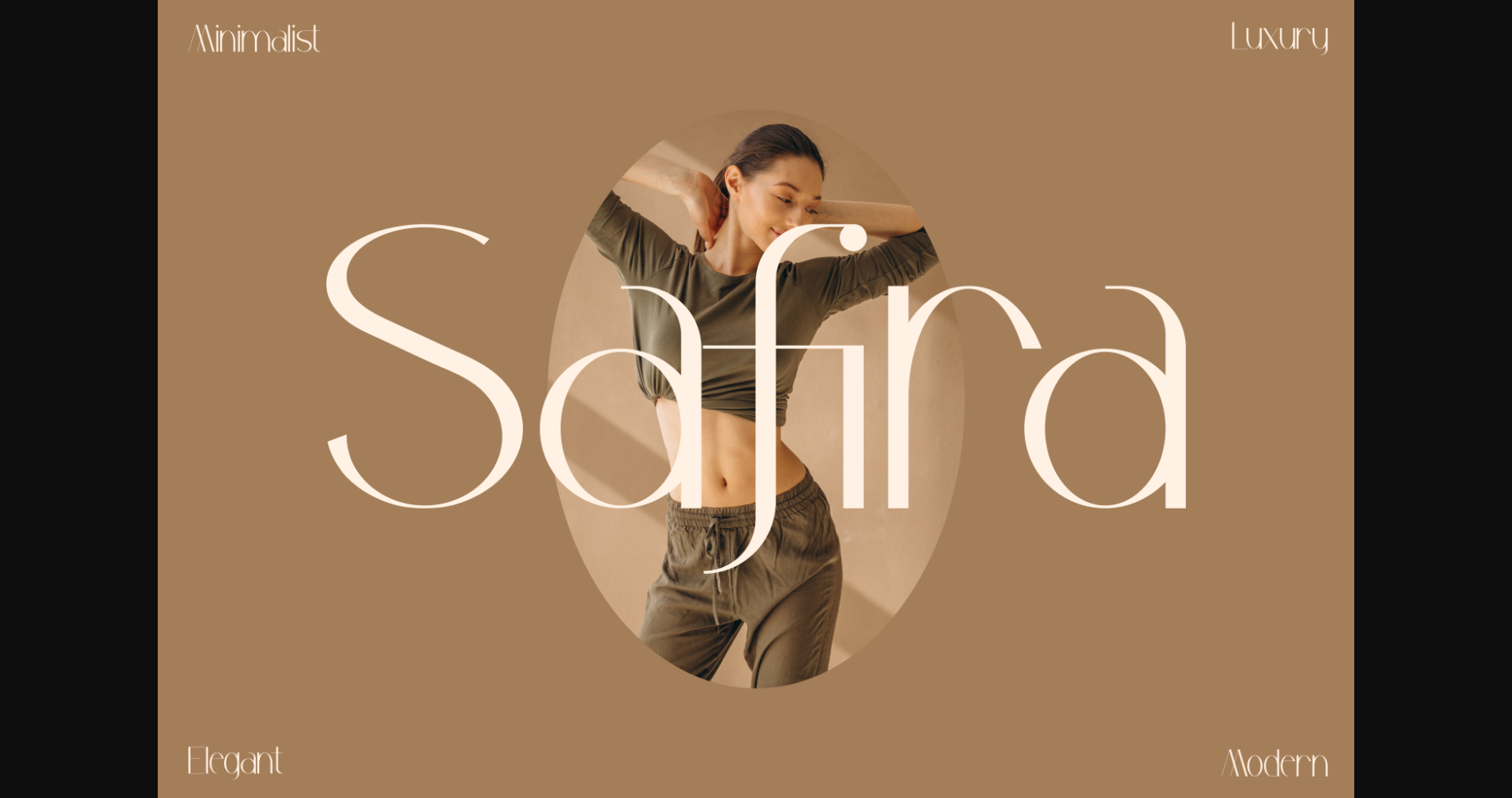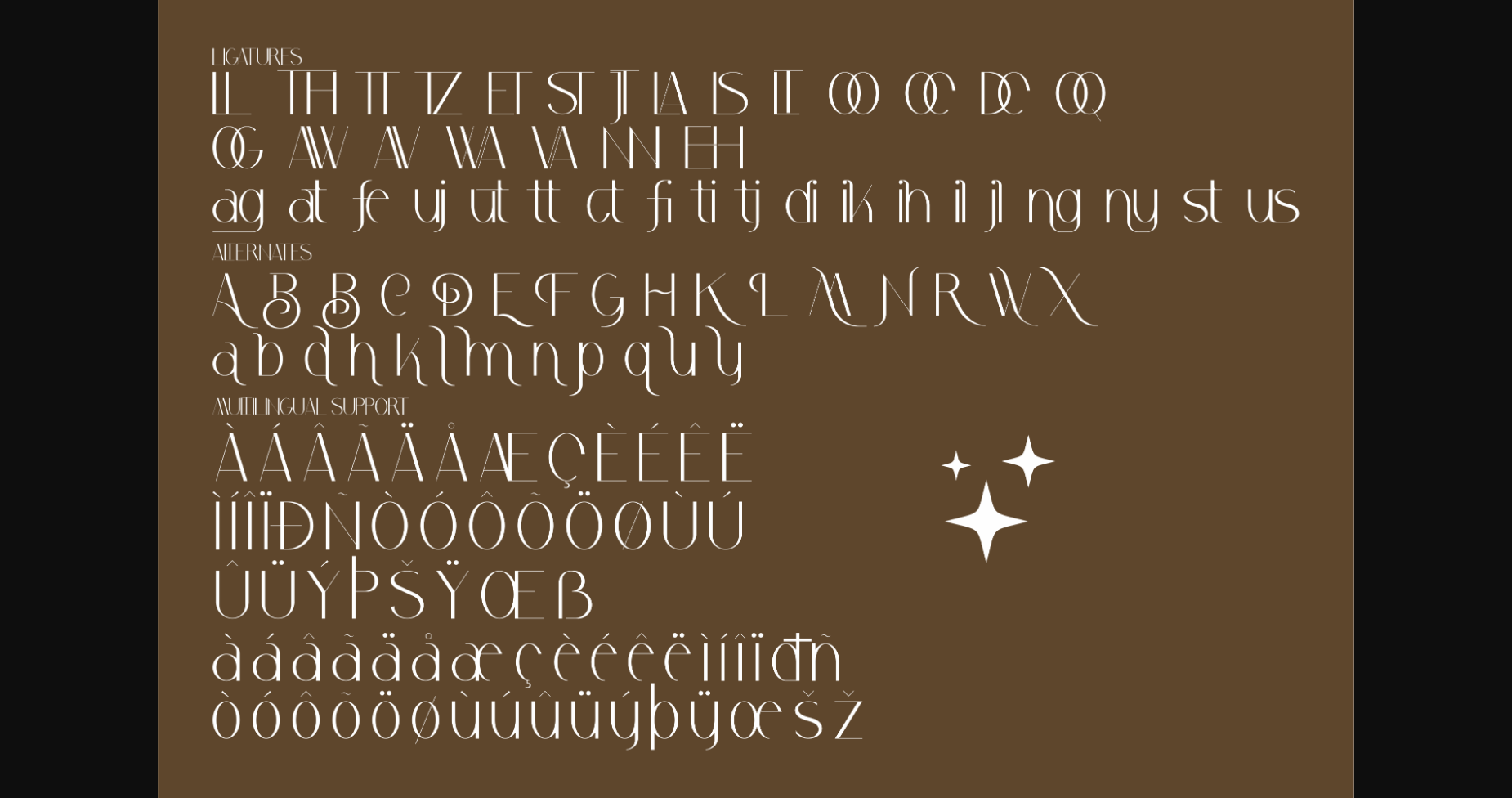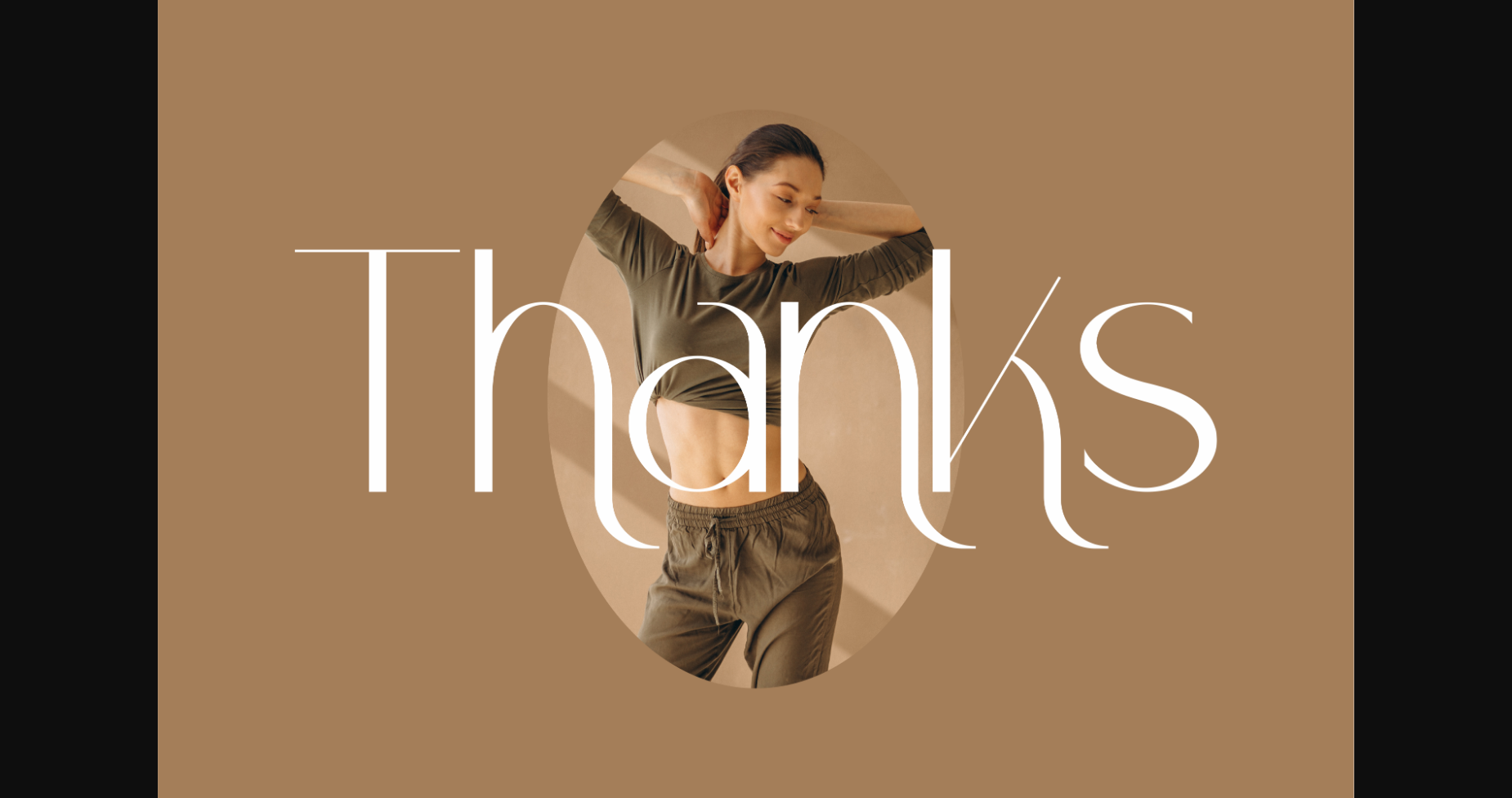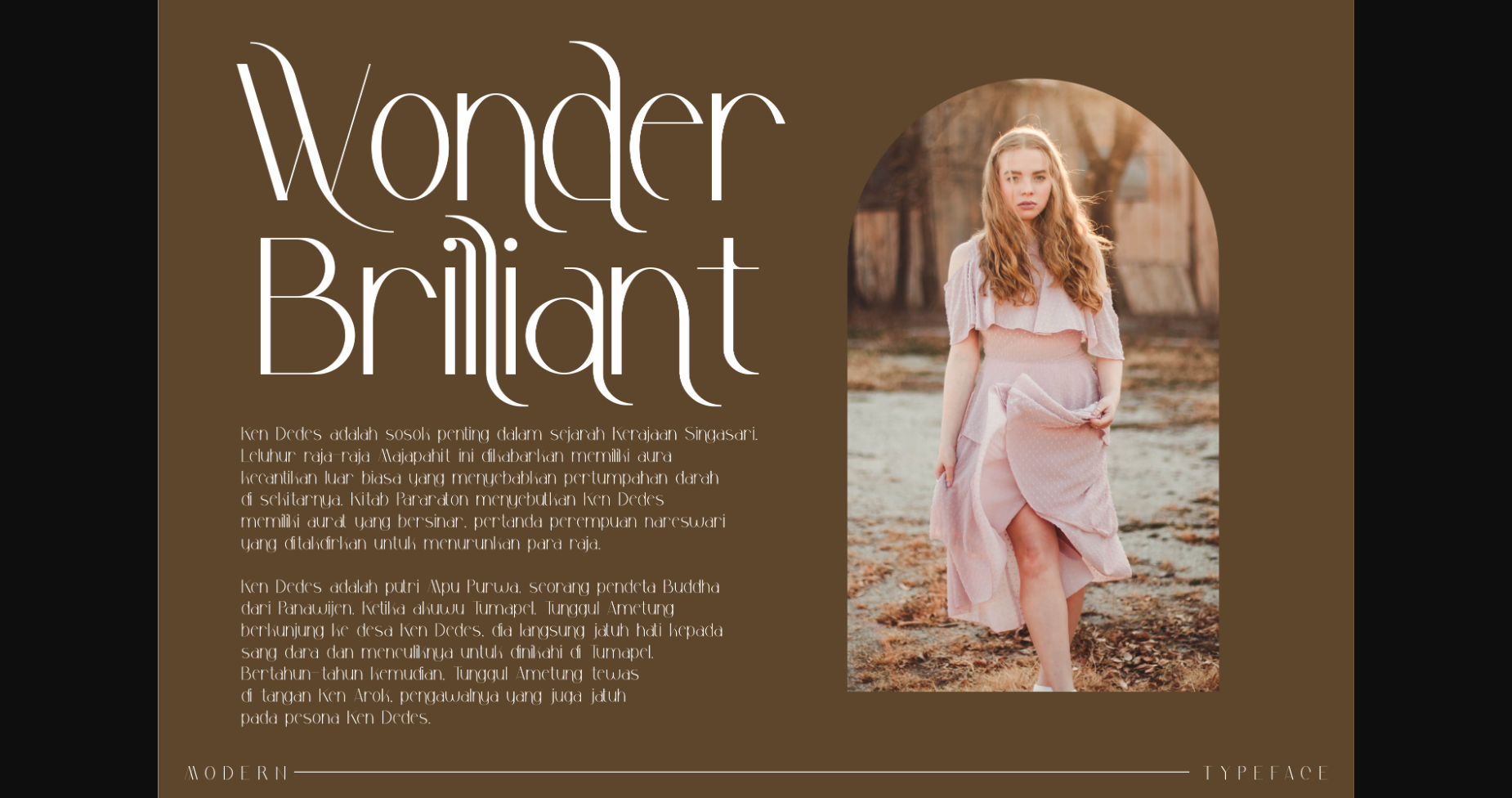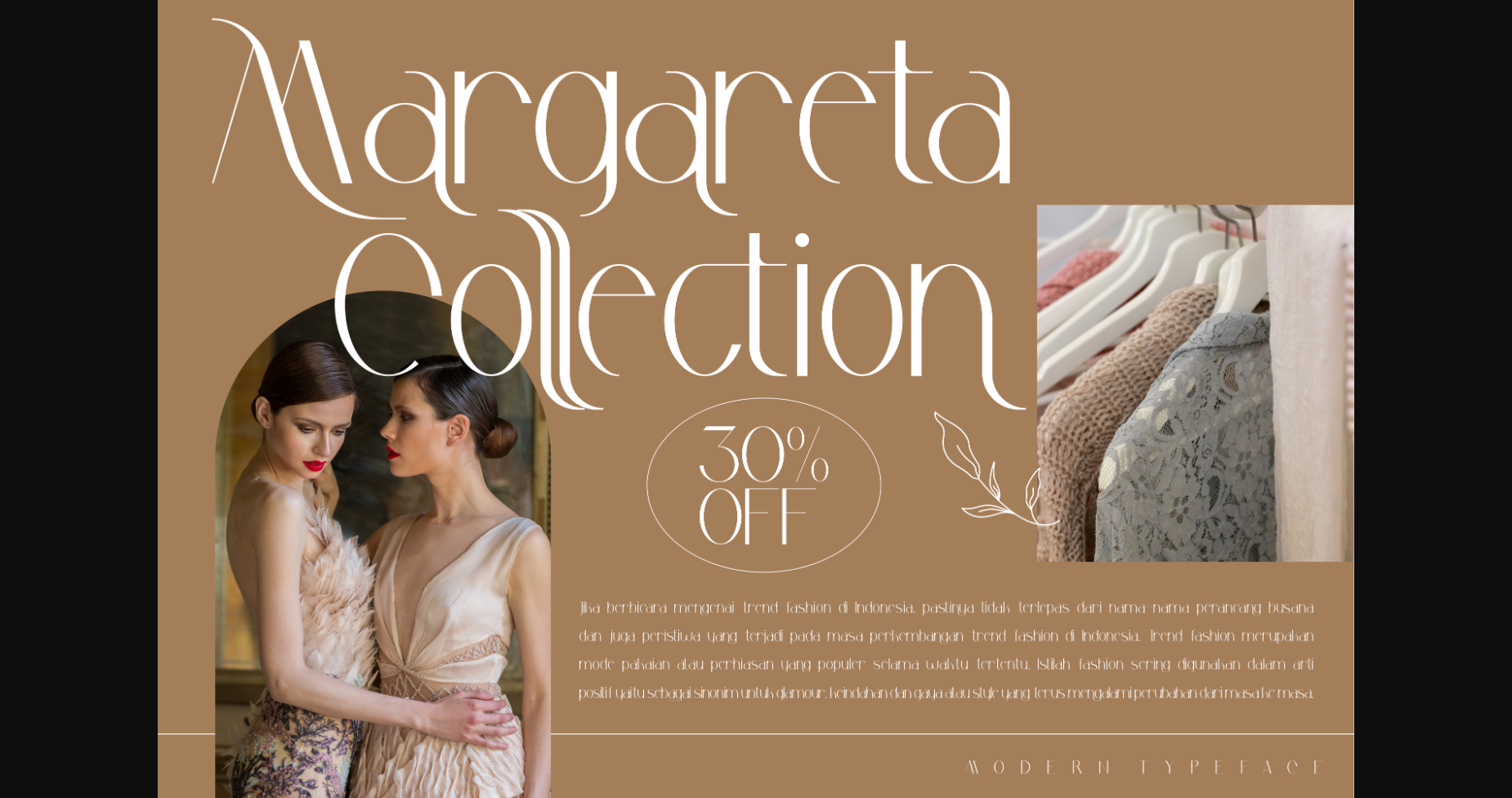
Safira Font
About Safira Font
Safira is a thin lettered and delicate sans serif font. It will add a luxury spark to any design project that you wish to create! This font is PUA encoded which means you can access all of the amazing glyphs and ligatures with ease!